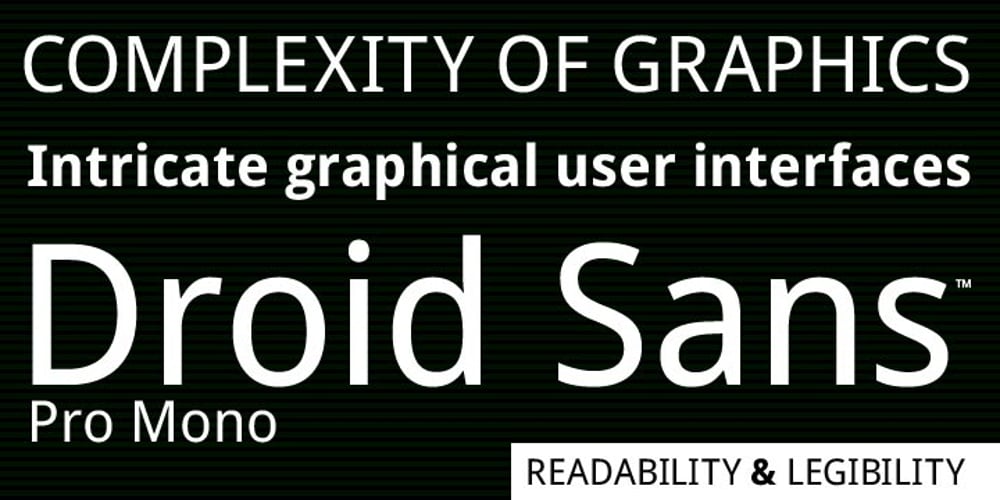
Droid Sans Font Family was designed by Steve Matteson and published by Ascender. Droid Sans contains 2 styles and family package options. Droid Sans Pro Font Family (2 fonts) are a humanist sans serif typeface designed by Steve Matteson, Type Director of Ascender Corp. The Font Family is an approachable, friendly set of typefaces optimized for display on screen. It was designed to provide optimal quality and legibility. It features upright stress, open forms and a neutral appearance. The font was optimized for user interfaces and to be comfortable for reading on a mobile handset in menus, web browser and other screen text. The font family contains Old Style Figures (requires an application that support advanced OpenType typographic features) and extensive character set coverage including Western Europe, Eastern/Central Europe, Baltic, Cyrillic, Greek and Turkish support. Contains: Droid Sans Pro Regular & Droid Sans Pro Bold